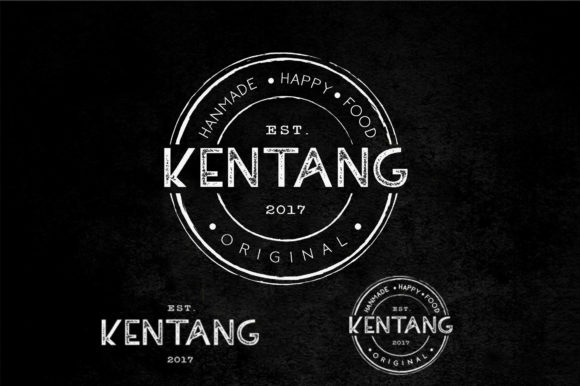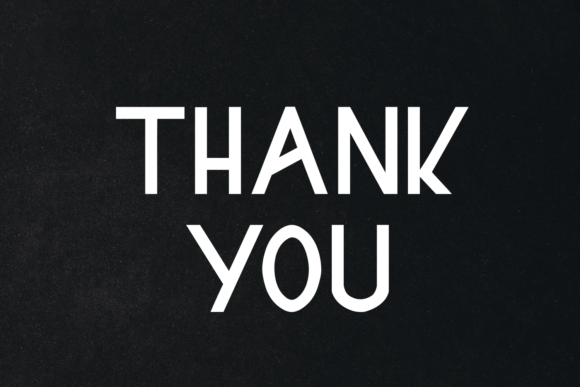
Introduction to Sesaot Font Font
Fonts play a crucial role in design, and the Sesaot Font font is a typeface that brings both character and versatility to any project. Whether you’re working on a branding project, a website, or a print design, the Sesaot Font font offers a unique style that can elevate your work.
Sesaot is a cool and simple styled, rough display font.
This font reads as strong, confident, and dynamic and can add tons of nostalgic character to your designs .
Key Features of Sesaot Font Font
Why Choose Sesaot Font Font?
The Sesaot Font font is more than just a typeface – it’s a design tool that helps you communicate your message with style and clarity. Its unique character set and versatile design make it suitable for a wide range of applications, from elegant invitations to bold headlines.
With its carefully crafted letterforms and balanced proportions, the Sesaot Font font ensures readability and visual appeal across all mediums.
What makes Sesaot Font font special?
The Sesaot Font font stands out with its unique design, exceptional readability, and versatility across various design applications.